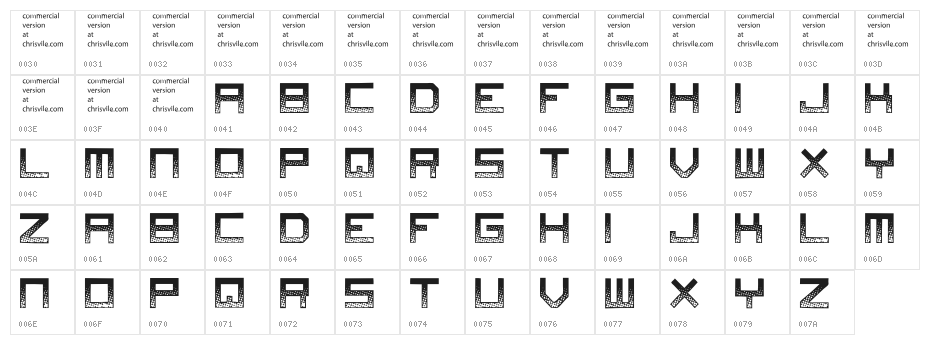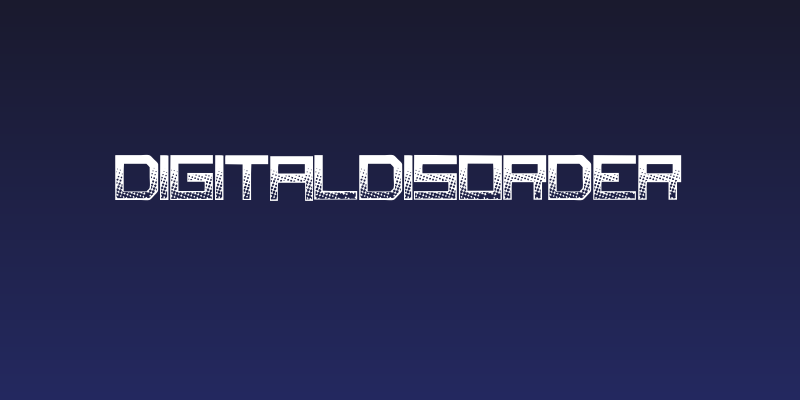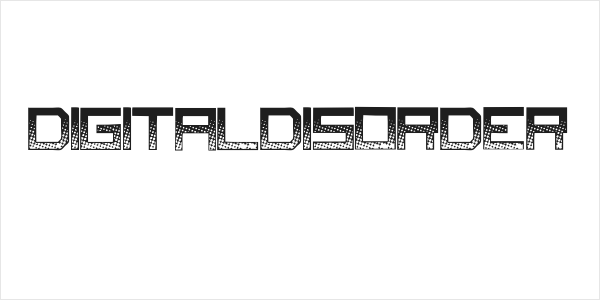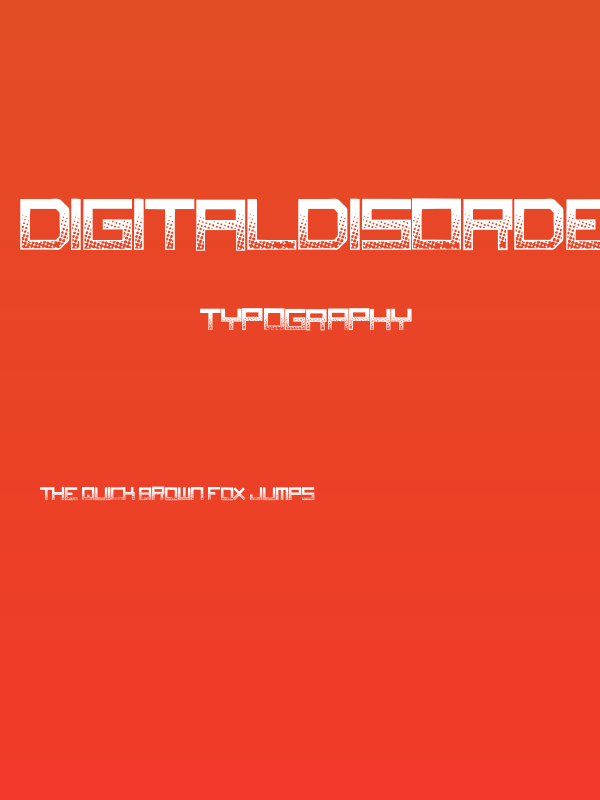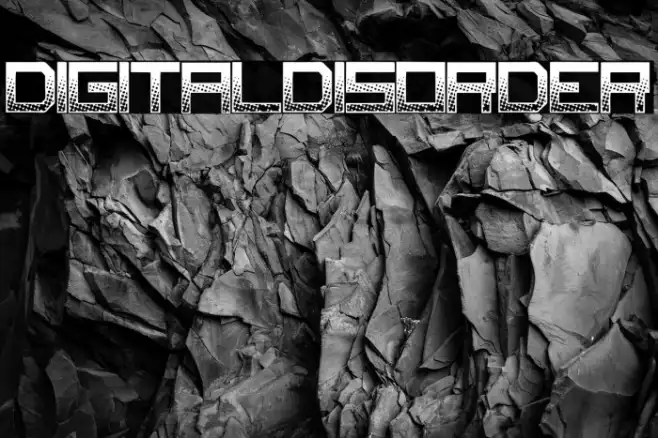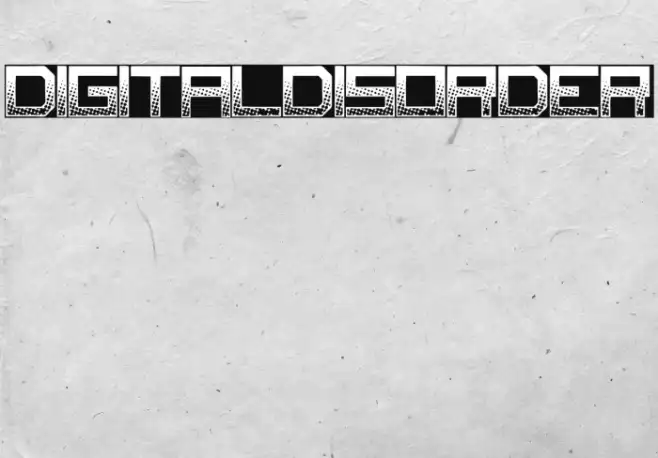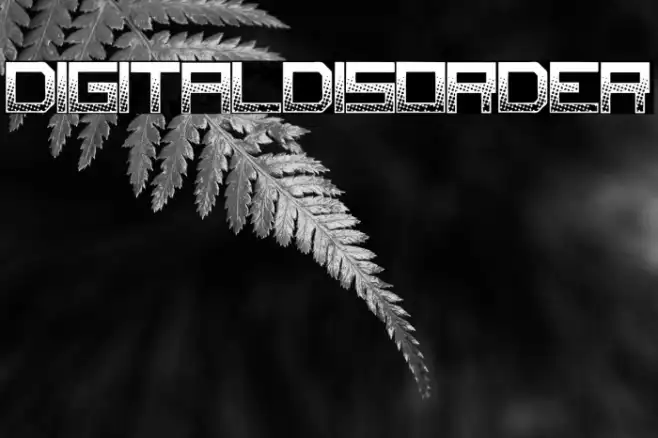
DigitalDisorder Font
DigitalDisorder Description
This font features a unique, digital-inspired design with a textured, pixelated pattern filling the interior of each character. The letters are bold and geometric, with a blocky structure that gives them a modern, tech-oriented appearance. The uppercase letters are consistent in height, while the lowercase letters maintain a similar style, offering a cohesive look. The numbers and special characters follow the same design principles, ensuring uniformity across all glyphs. This font's distinct style makes it ideal for projects that require a futuristic or digital aesthetic.
| Proposed Projects | Ideal for tech-related branding, digital art projects, video game design, and futuristic-themed posters. |